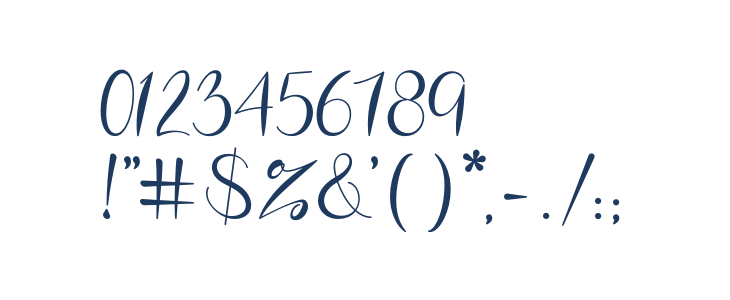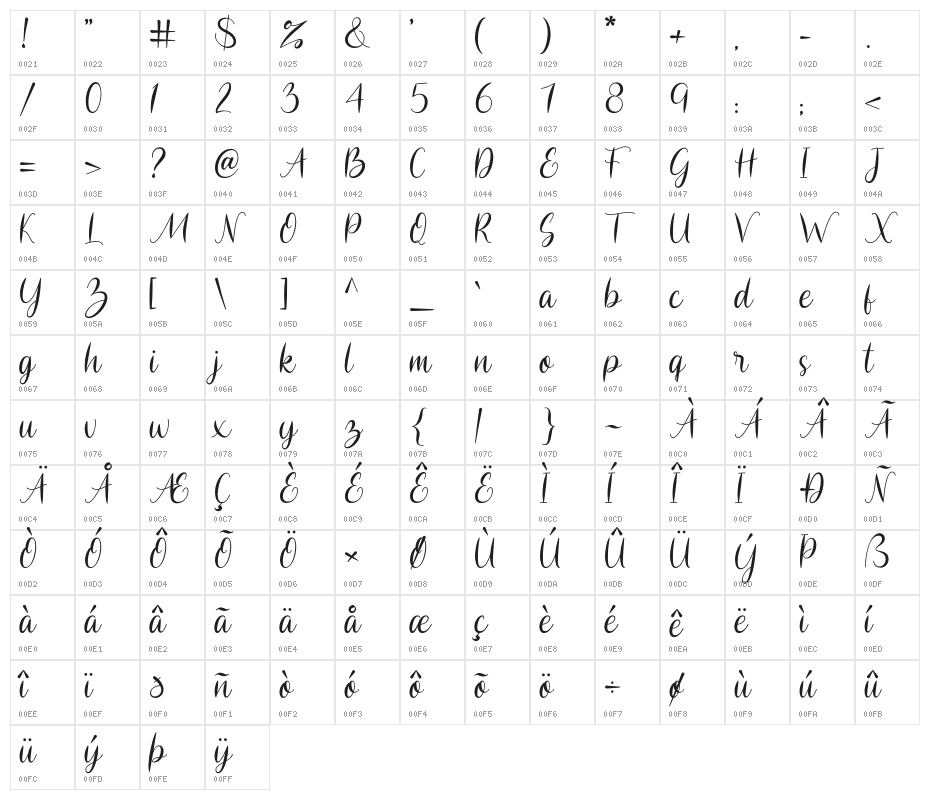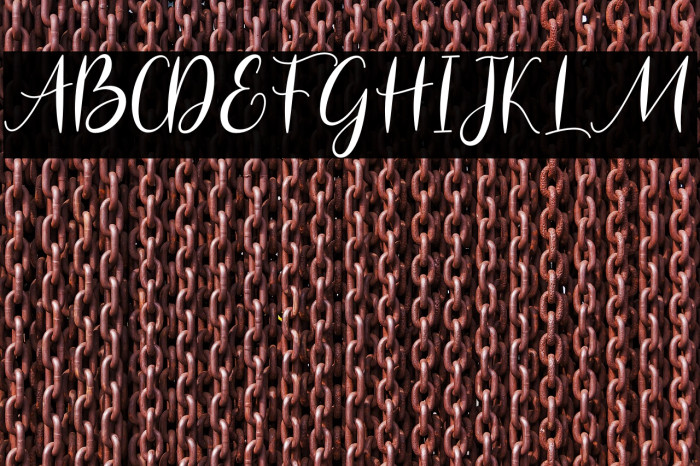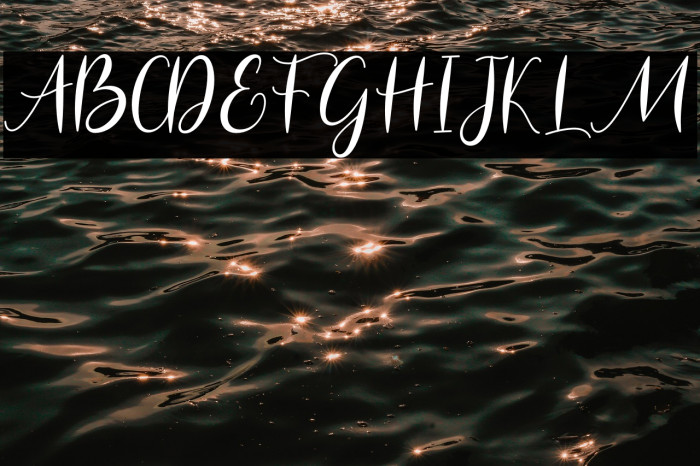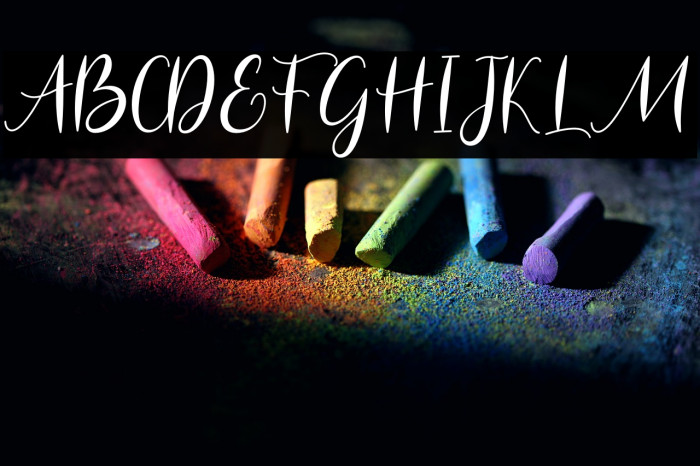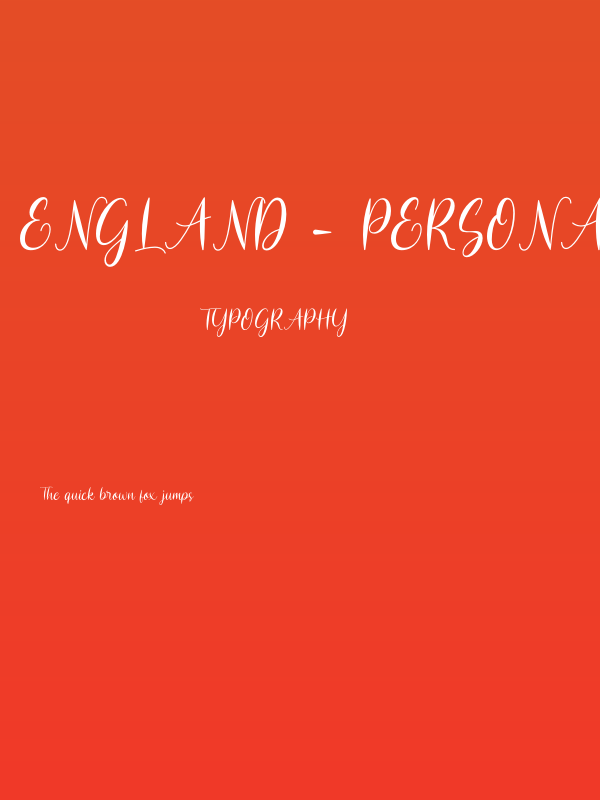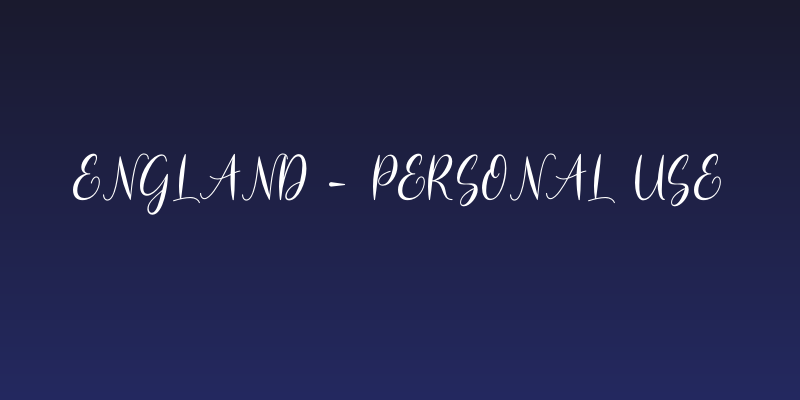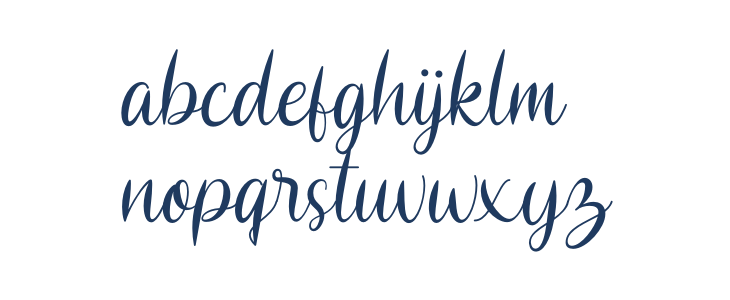
england - Personal Use Font
england - Personal Use Description
This elegant script font features a flowing, cursive style with smooth, connected strokes that give it a graceful and sophisticated appearance. The uppercase letters are tall and slender, with delicate loops and swashes that add a touch of flair. The lowercase letters maintain a consistent flow, enhancing readability while retaining an artistic touch. The numerals are stylish and complement the overall design, while the special characters are crafted to match the font's elegant theme. This font is perfect for projects that require a personal, handwritten feel, such as invitations, greeting cards, and branding materials.
| Proposed Projects | Ideal for wedding invitations, personal branding, greeting cards, and elegant logos. |